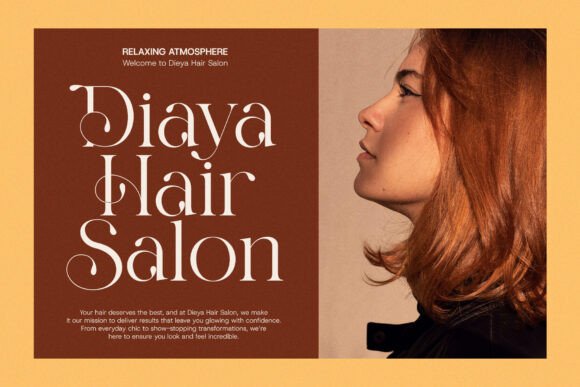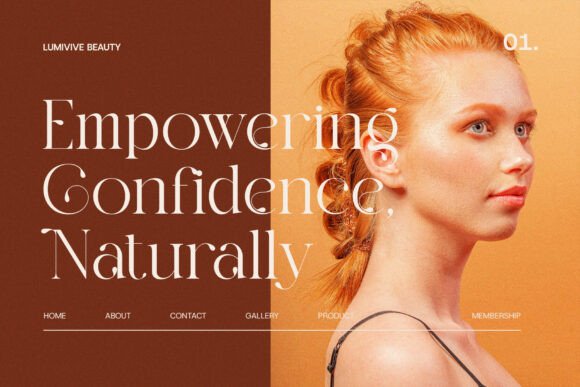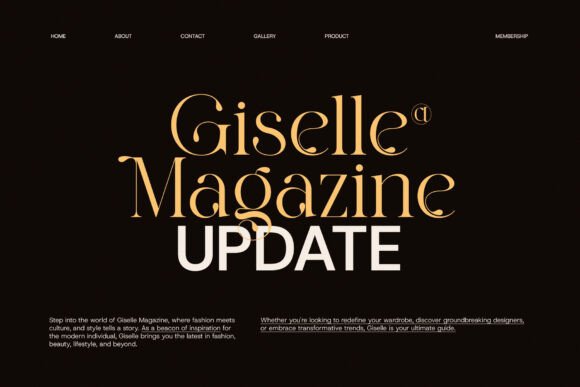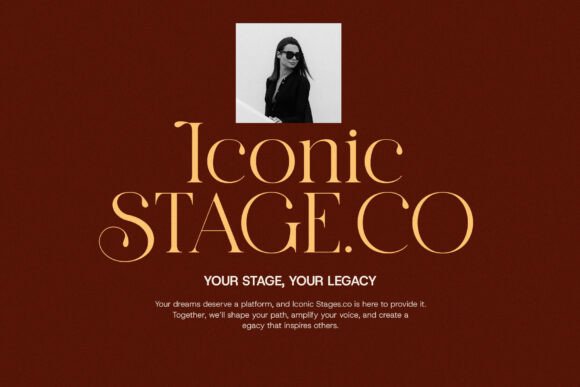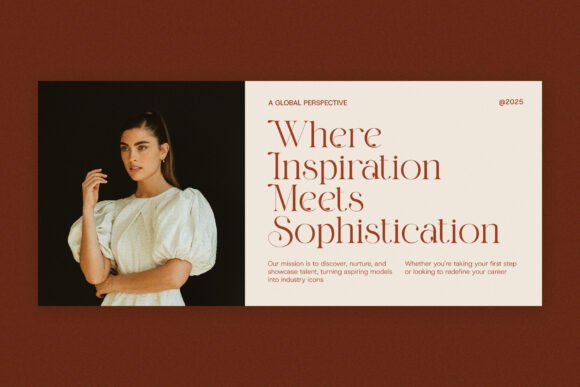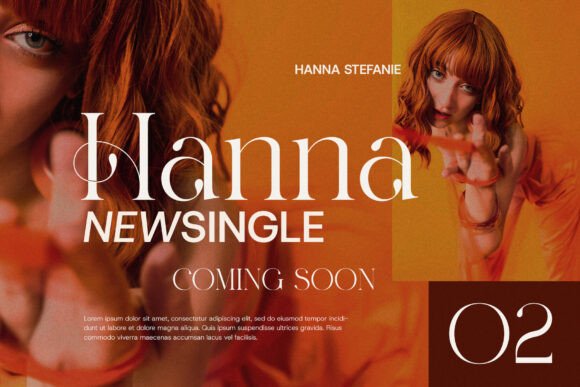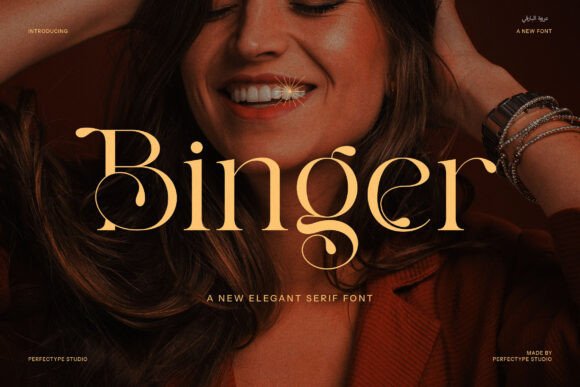
I still remember the frustration of working on a high-end branding project for a boutique hotel, determined to find the perfect font that would capture the essence of luxury and sophistication. The client was specific: the font had to be elegant, modern, and highly customizable. I scoured the internet, tried out countless fonts, but none seemed to fit the bill. That was until I stumbled upon the Binger Modern Serif Font. ✨
First Impressions: A Love Affair with Binger
As soon as I opened the font files, I knew I had found something special. The refined serif details, clean lines, and sleek aesthetic immediately caught my eye. I was impressed by the unique ligatures and alternate characters that allowed for a high level of customization. Here are some of the things I love about Binger:
• ✅ Elegant and sophisticated design
• ✨ Highly customizable with unique ligatures and alternate characters
• ✅ Perfect for high-end branding, luxury packaging, and editorial work
• ✨ Works beautifully in both large display settings and smaller text
While Binger has won my heart, it’s not without its quirks. Here are a few things to keep in mind:
• ⚠️ Some users may find the font too ornate or luxurious for certain projects
• 🤔 The font may not work well with very small text sizes or low-resolution images
• ⚠️ Limited support for non-English languages
One of the standout features of Binger is its OpenType features and glyphs. These allow for advanced typographic control and customization. To access these features:
The Story Behind Binger
Binger was designed by a team of typographers who wanted to create a font that would capture the essence of modern luxury. Inspired by classic serif fonts, they added a modern twist with clean lines, refined details, and advanced typographic features. The result is a font that’s both elegant and highly customizable.
Q: What is Binger font best used for?
A: Binger is perfect for high-end branding, luxury packaging, editorial work, and digital design.
Q: Is Binger a versatile font?
A: Yes, Binger works beautifully in both large display settings and smaller text.